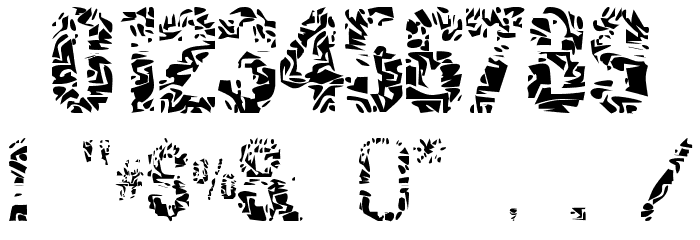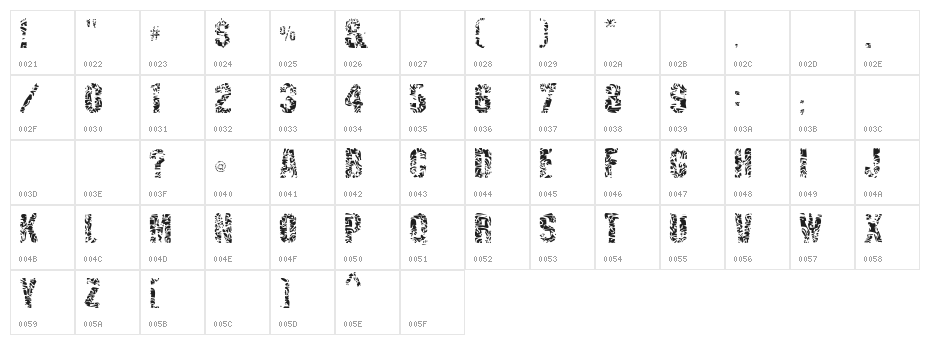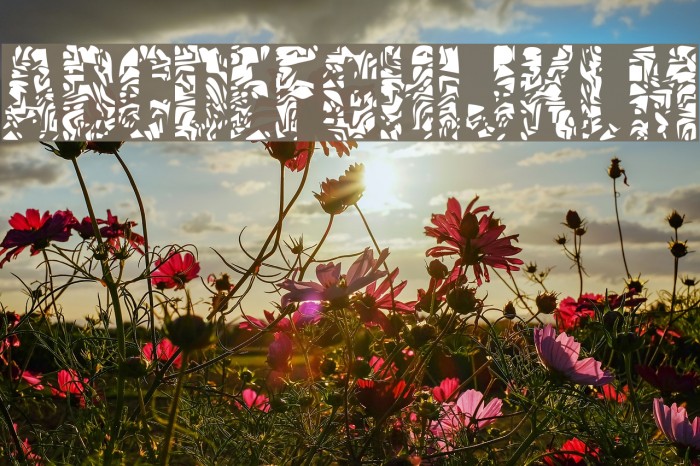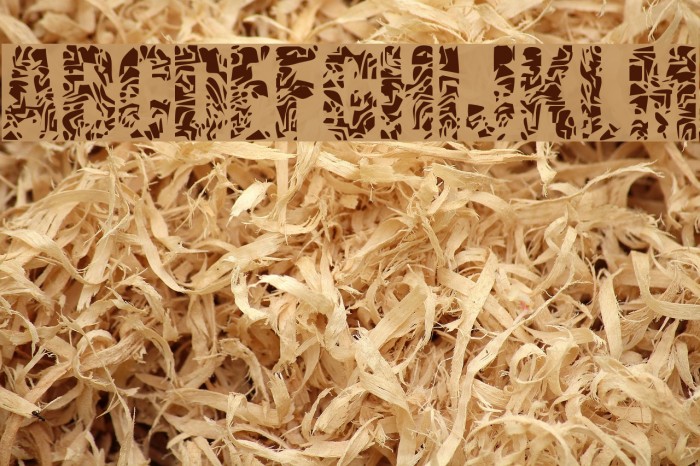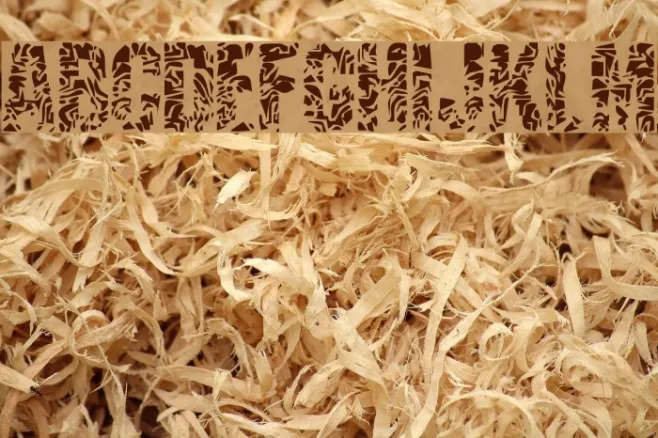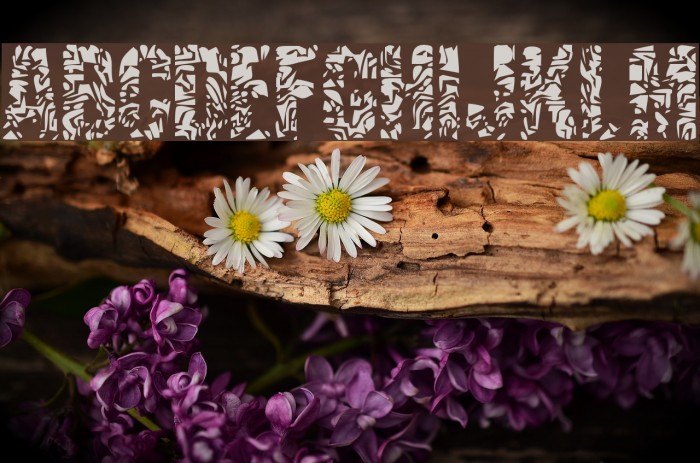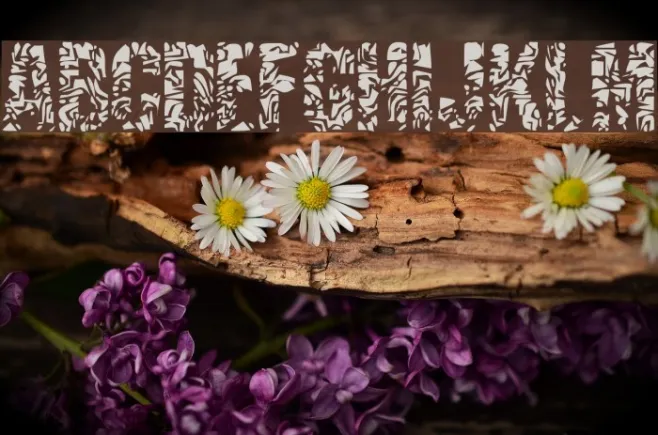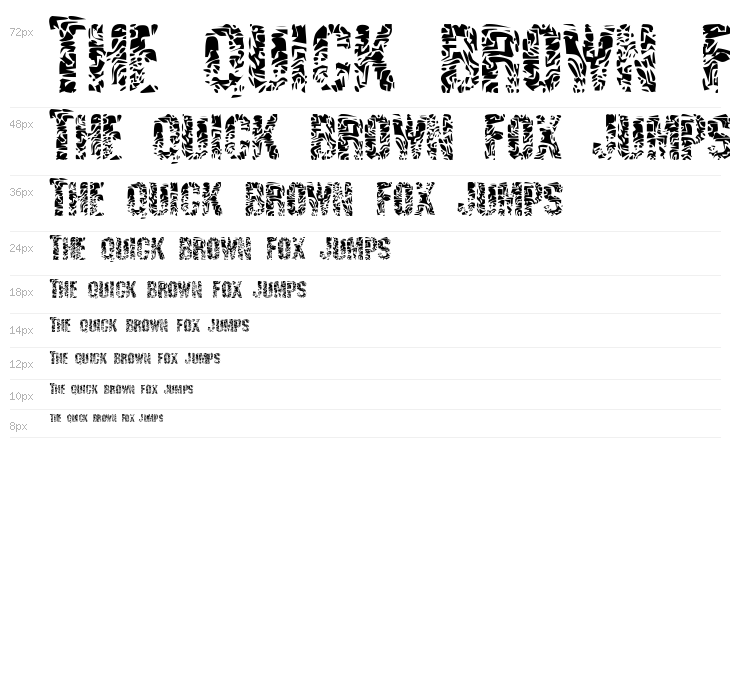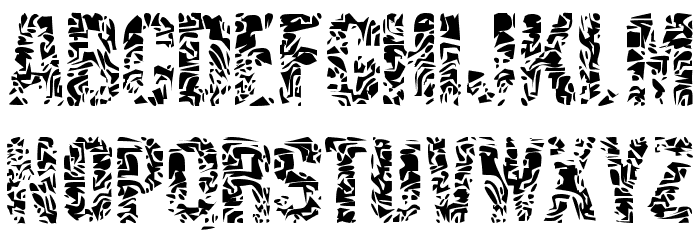
Scraping Font
Scraping Description
This font features a highly decorative and intricate design, with each character filled with abstract patterns resembling zebra stripes or foliage. The bold and artistic style makes it stand out, with a strong visual impact that captures attention. The uppercase and lowercase letters maintain a consistent style, ensuring uniformity across the text. The numbers and special characters are equally detailed, adding to the font's cohesive appearance. This font is ideal for projects that require a unique and eye-catching aesthetic.
| Proposed Projects | Ideal for posters, album covers, branding, and any project requiring a striking visual element. |